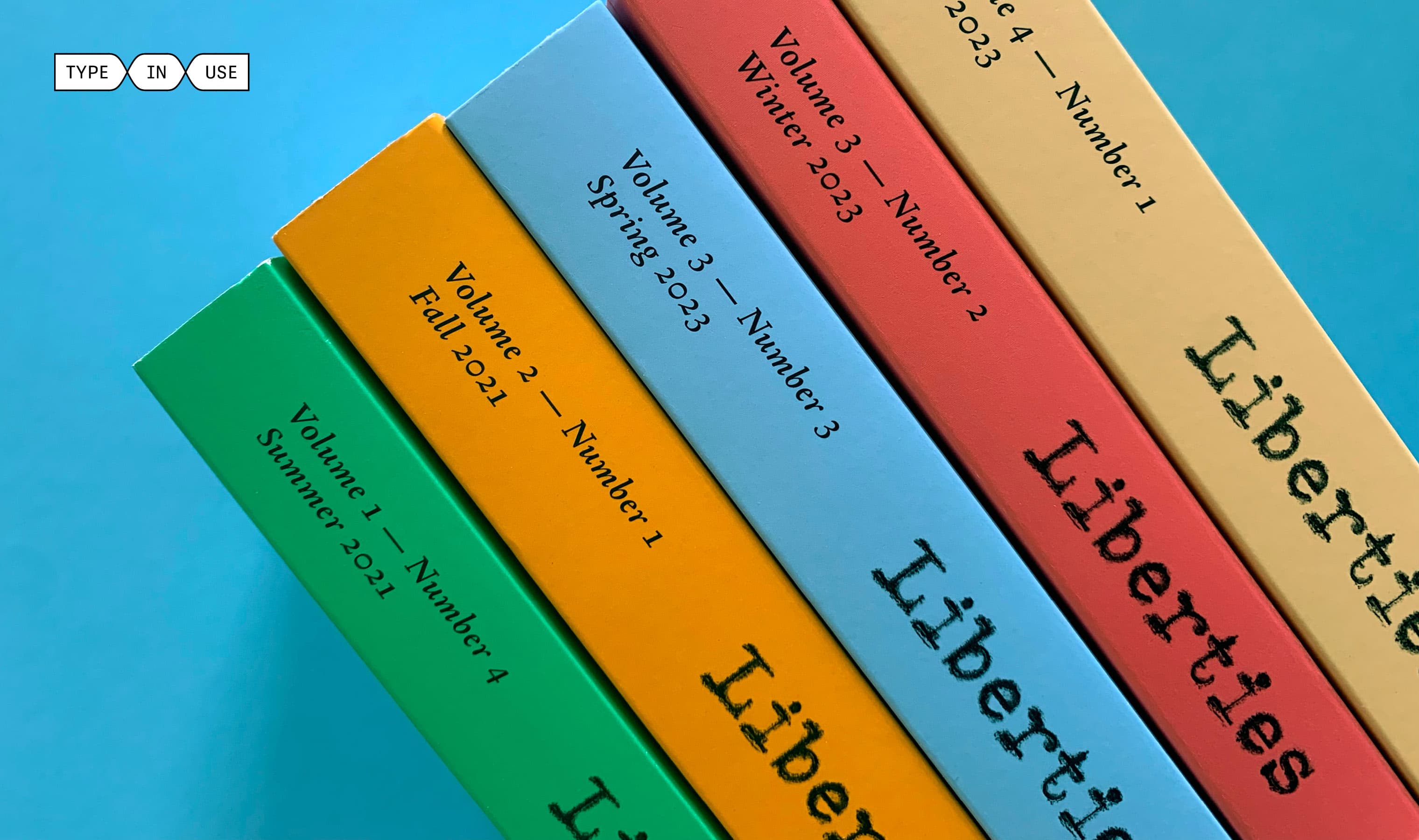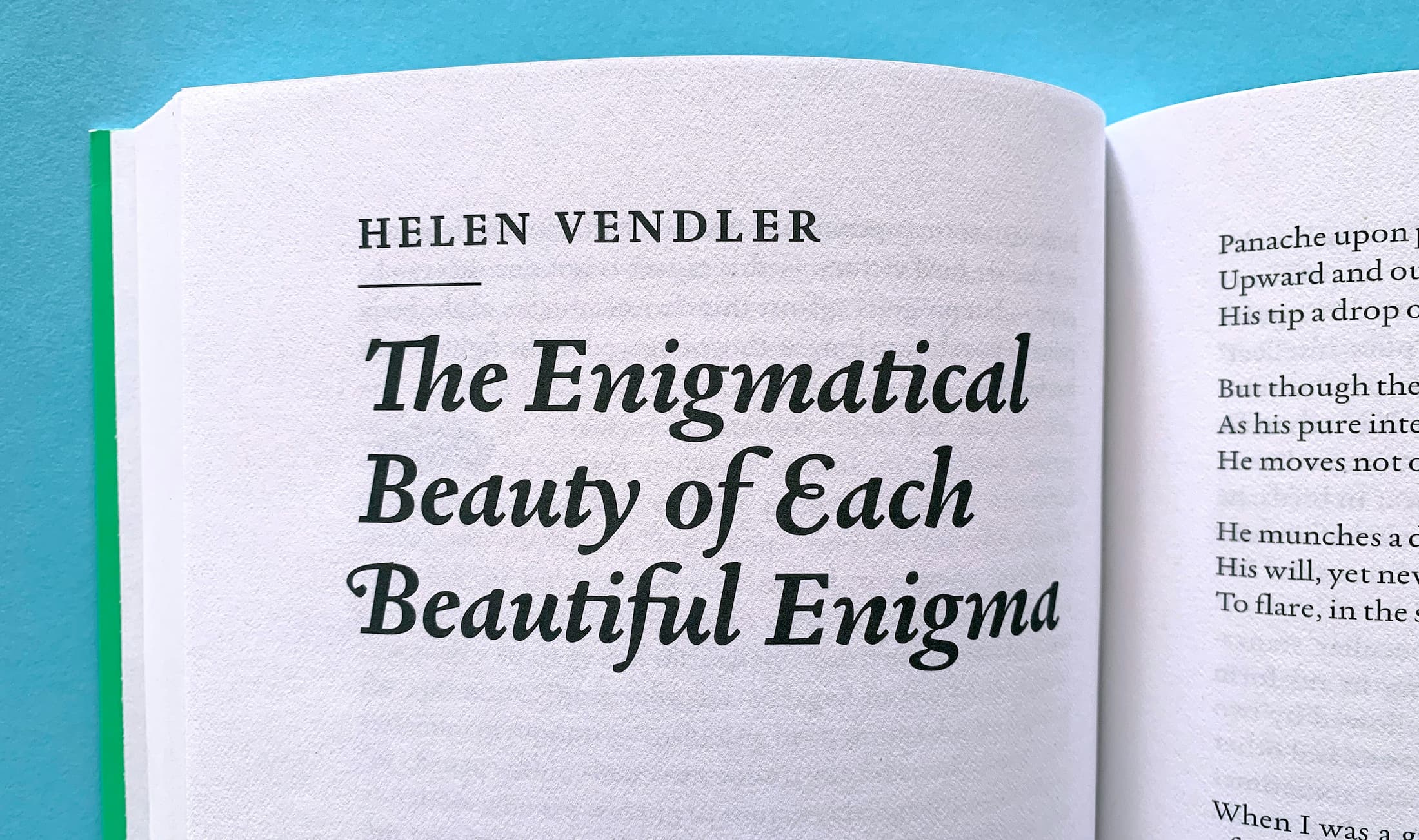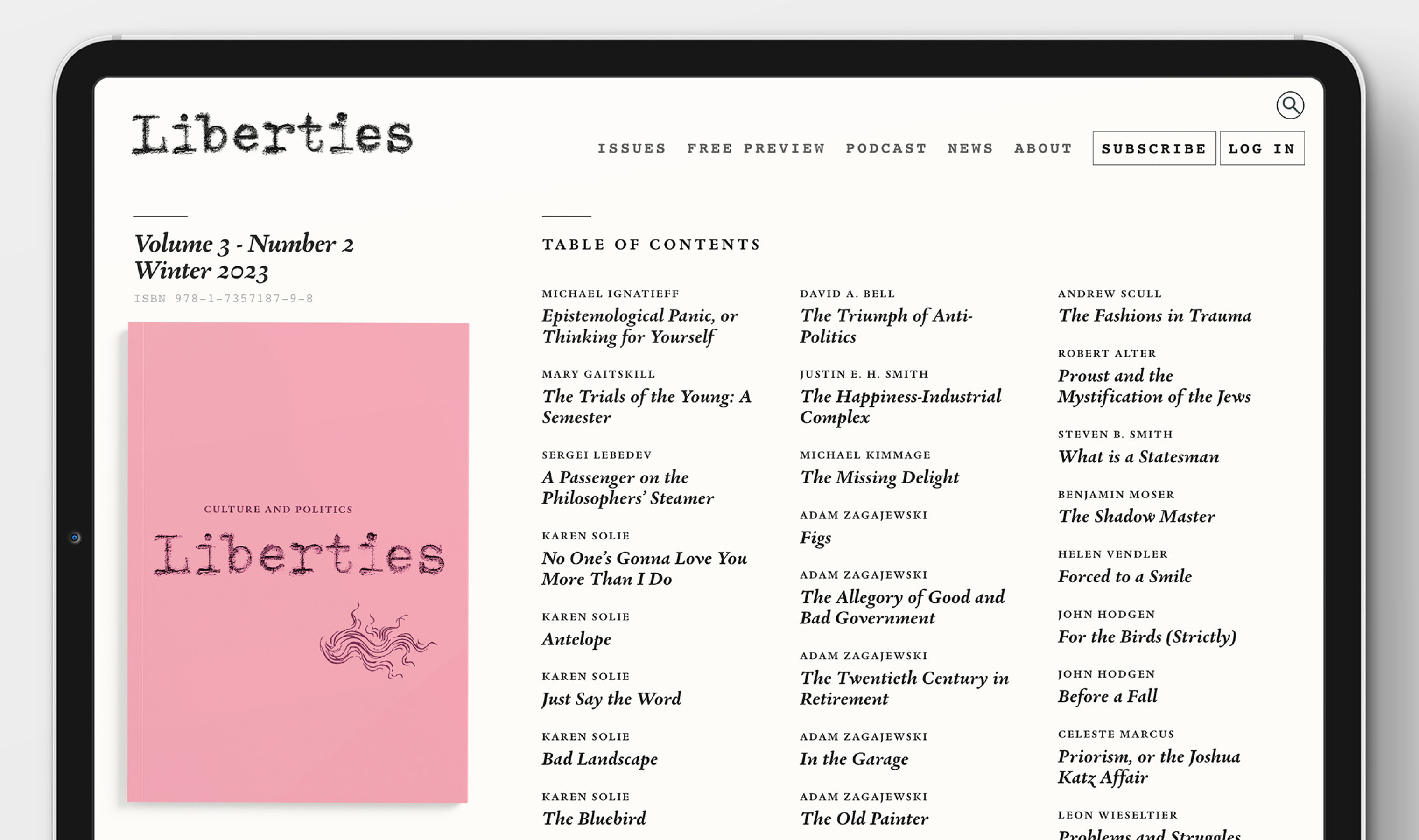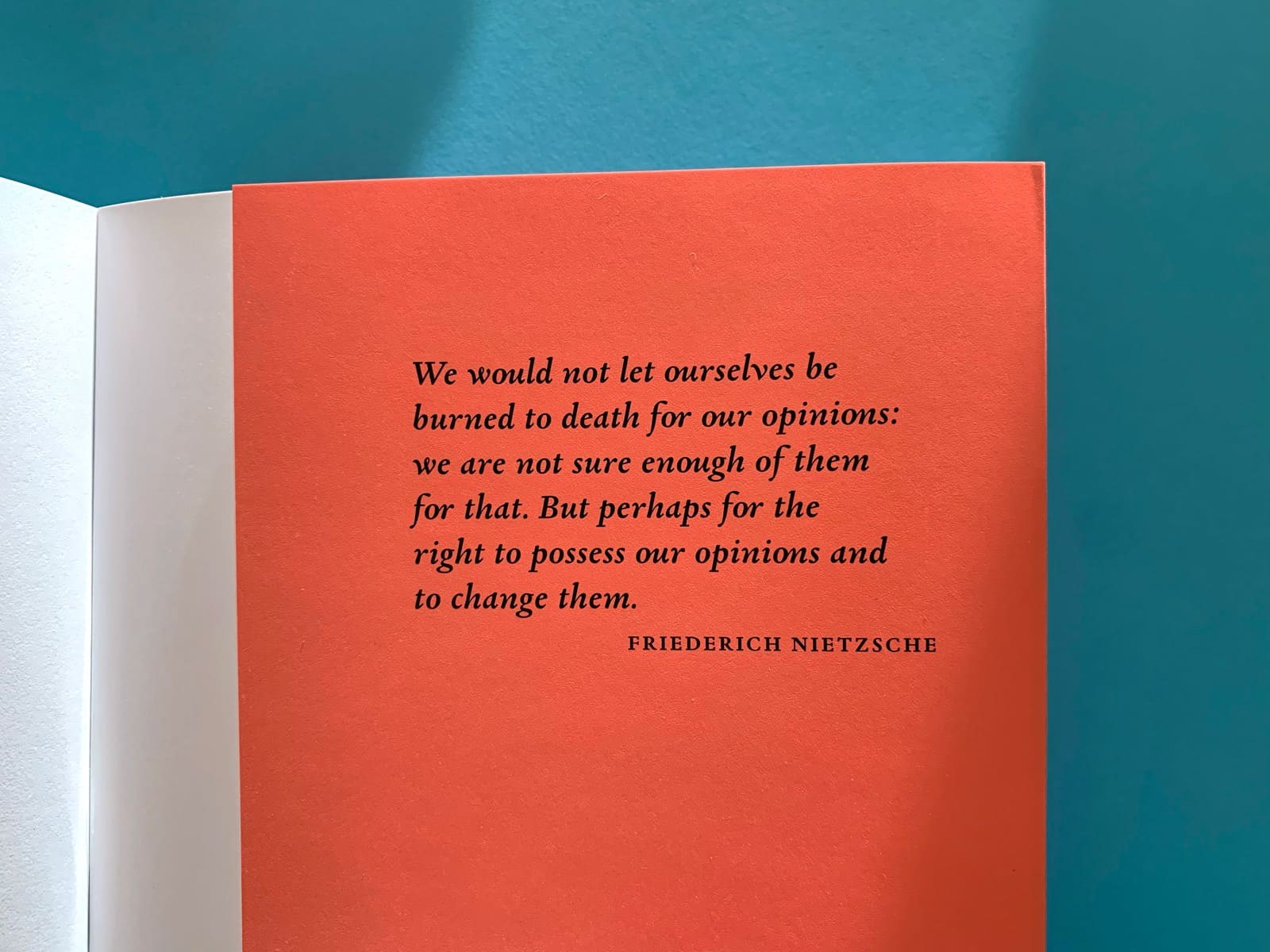
Obtaining “Liberties” with Garalda
Washington, DC-based quarterly journal Liberties is designed by William van Roden around educating the general public on the history, current trends, and the possibilities of culture and politics. Van Roden chose Xavier Dupre’s Garalda family as its identity and design voice across the website, social media, and printed publication.
Garalda is a charming family that renews a legacy of finesse. Its workaday personality encourages easy long-form reading, but this reinvented Garamond is certainly not basic. “For us, Garalda works hard, reads well, and looks elegant,” says van Roden. With its comfortable text appearance, swash alternates, and striking details when enlarged, he continues, “Garalda offered a much more vibrant alternative to the familiar Garamond.”